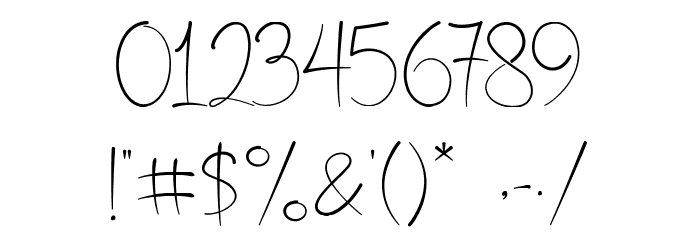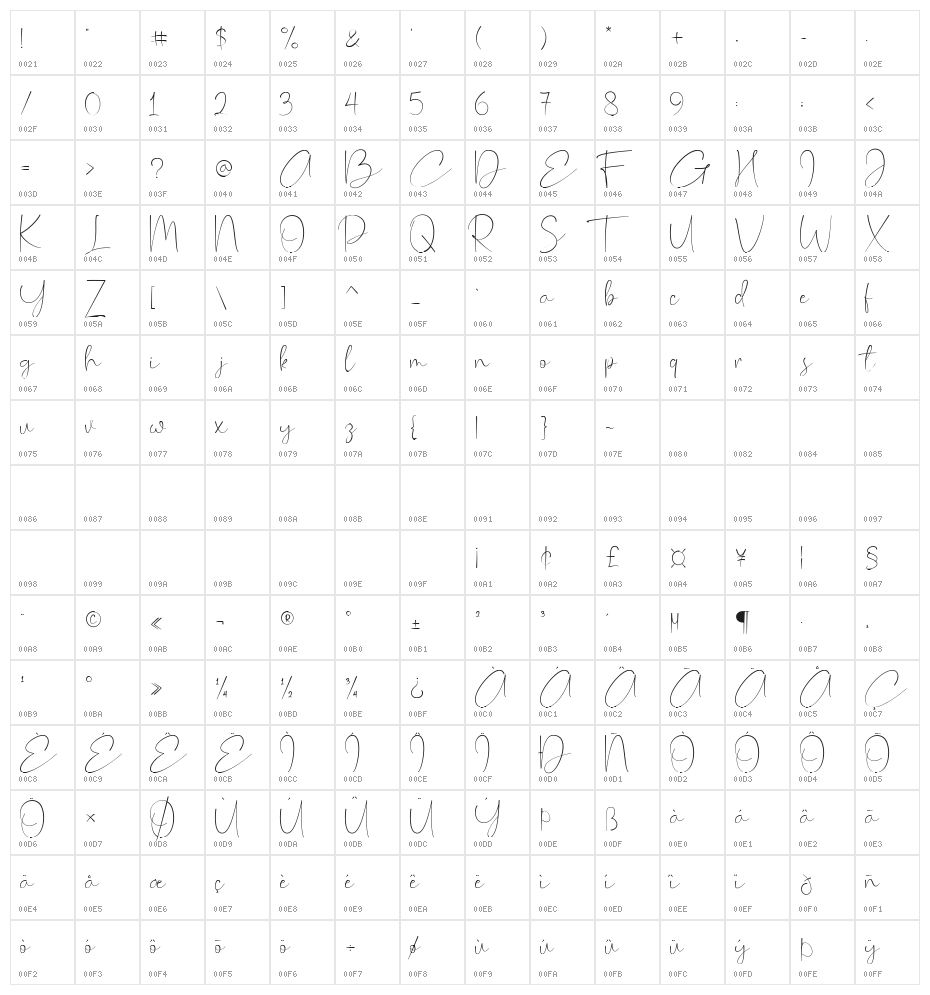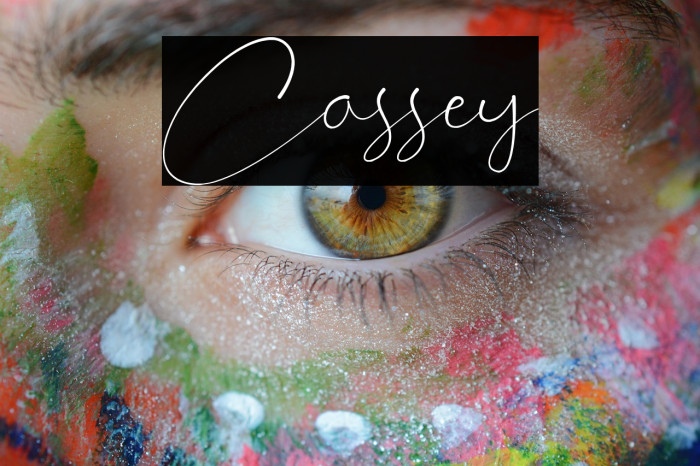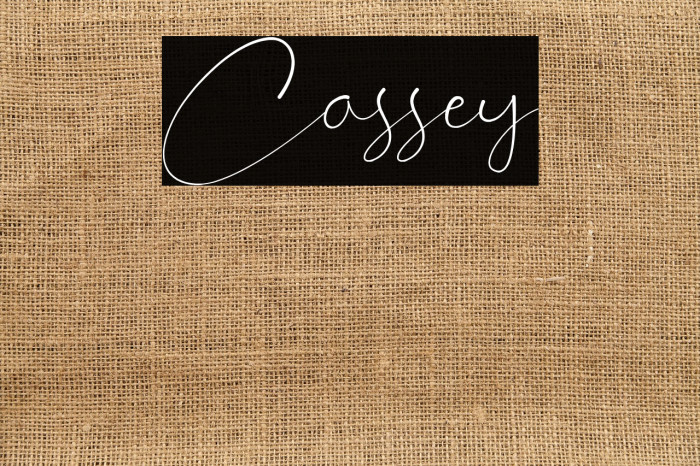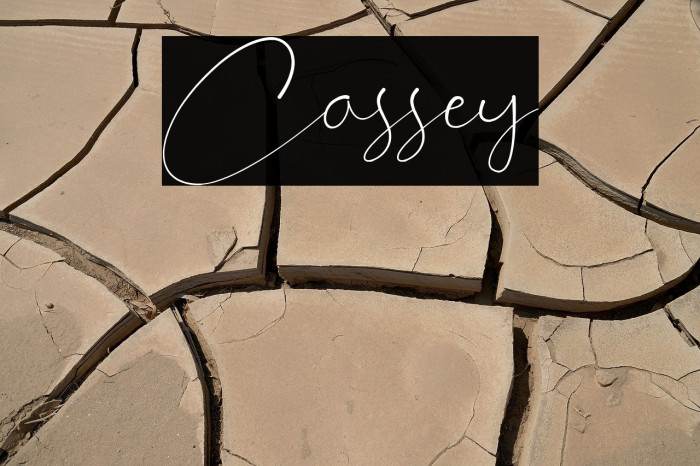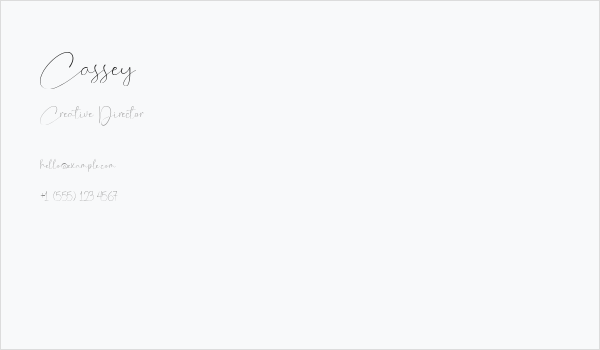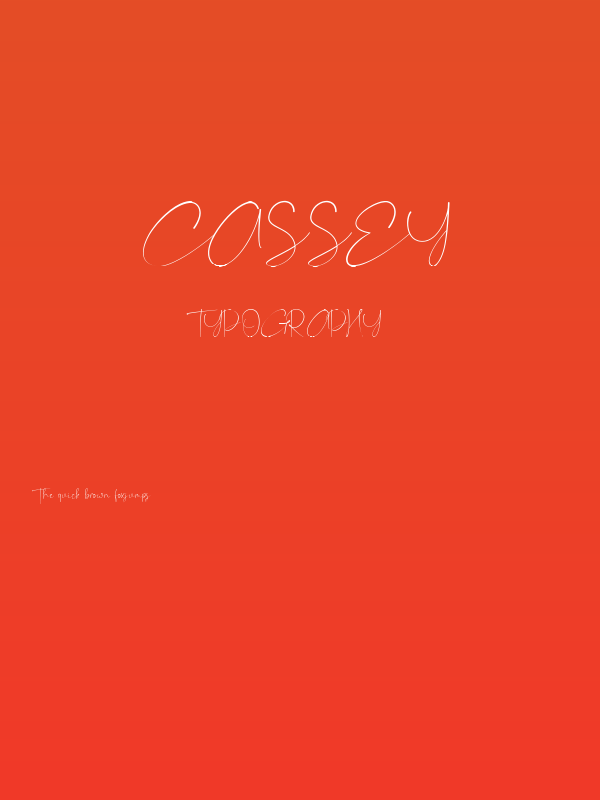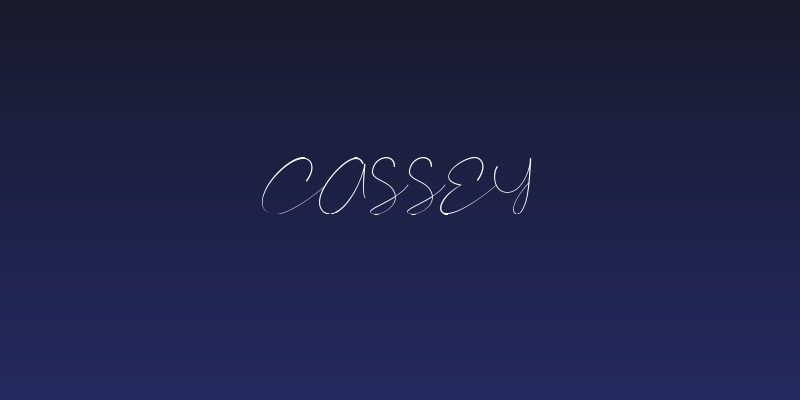
Cassey Font
Cassey Description
This font features an elegant, flowing script style that mimics natural handwriting. The characters are connected in a fluid manner, giving it a personal and artistic touch. The uppercase letters are slightly larger and more embellished, while the lowercase letters maintain a consistent, smooth flow. The numerals and special characters are designed to match the overall aesthetic, with a playful yet sophisticated appearance. The font's thin strokes and delicate curves make it ideal for projects that require a touch of elegance and creativity.
Overall StyleElegant, Artistic
Use CaseLogos, Invitations, Artistic designs
Proposed ProjectsIdeal for wedding invitations, greeting cards, personal branding, and artistic projects.